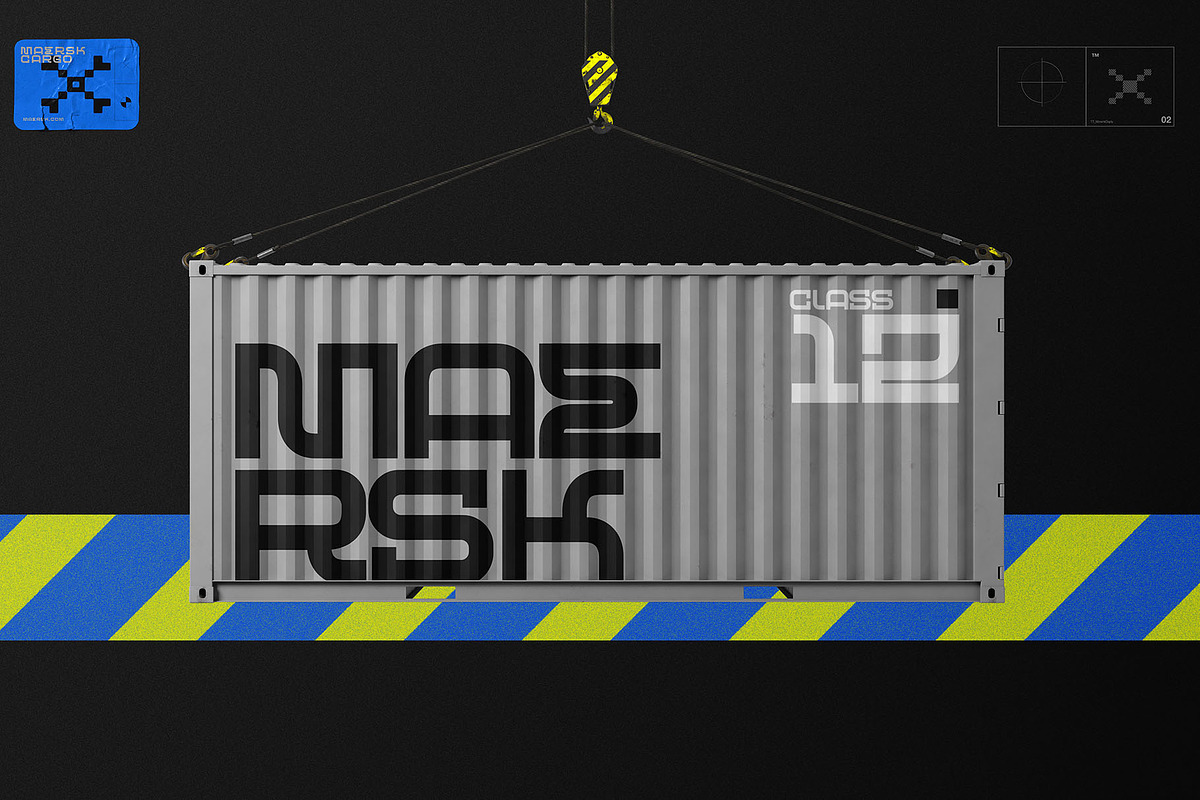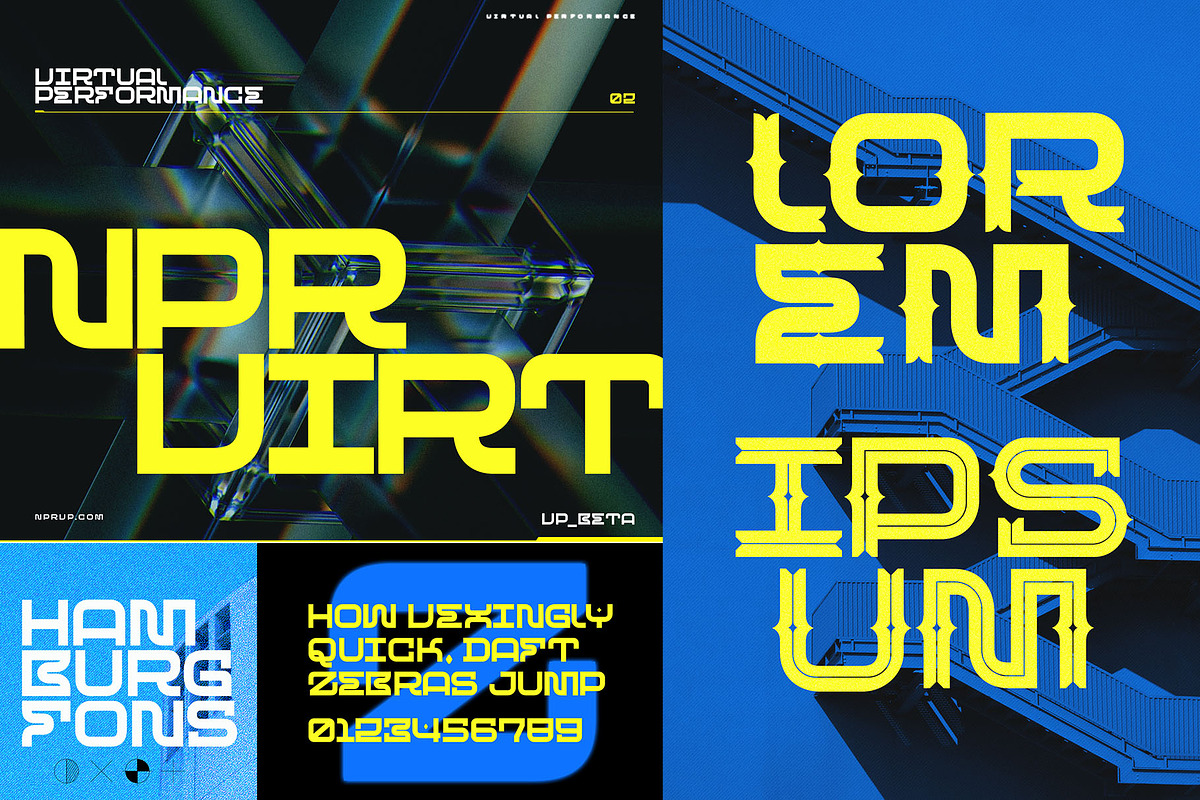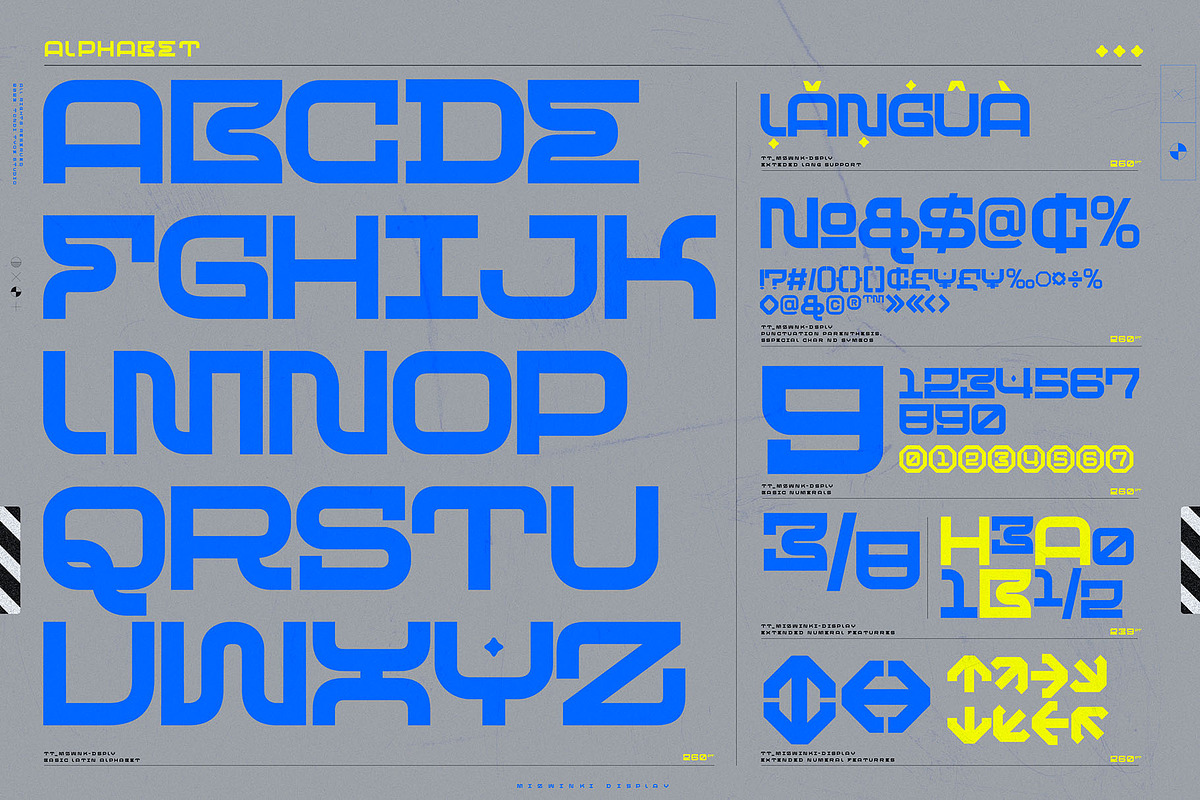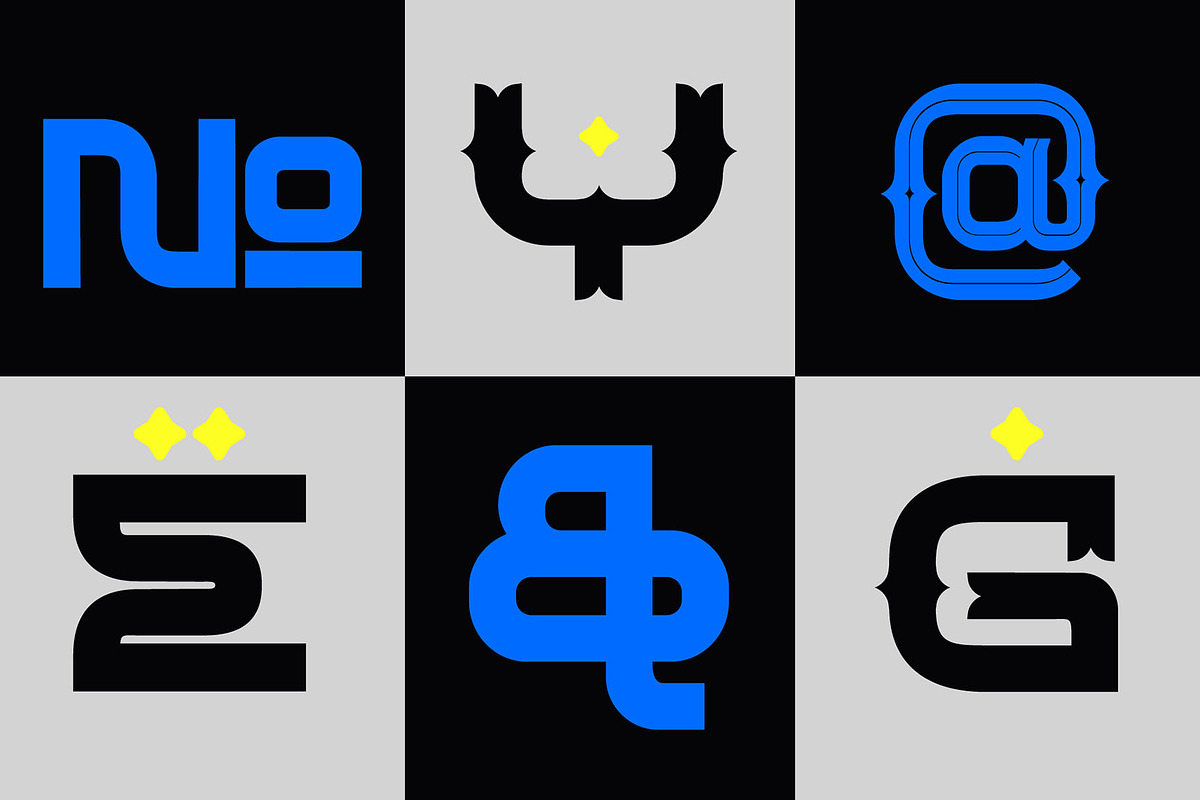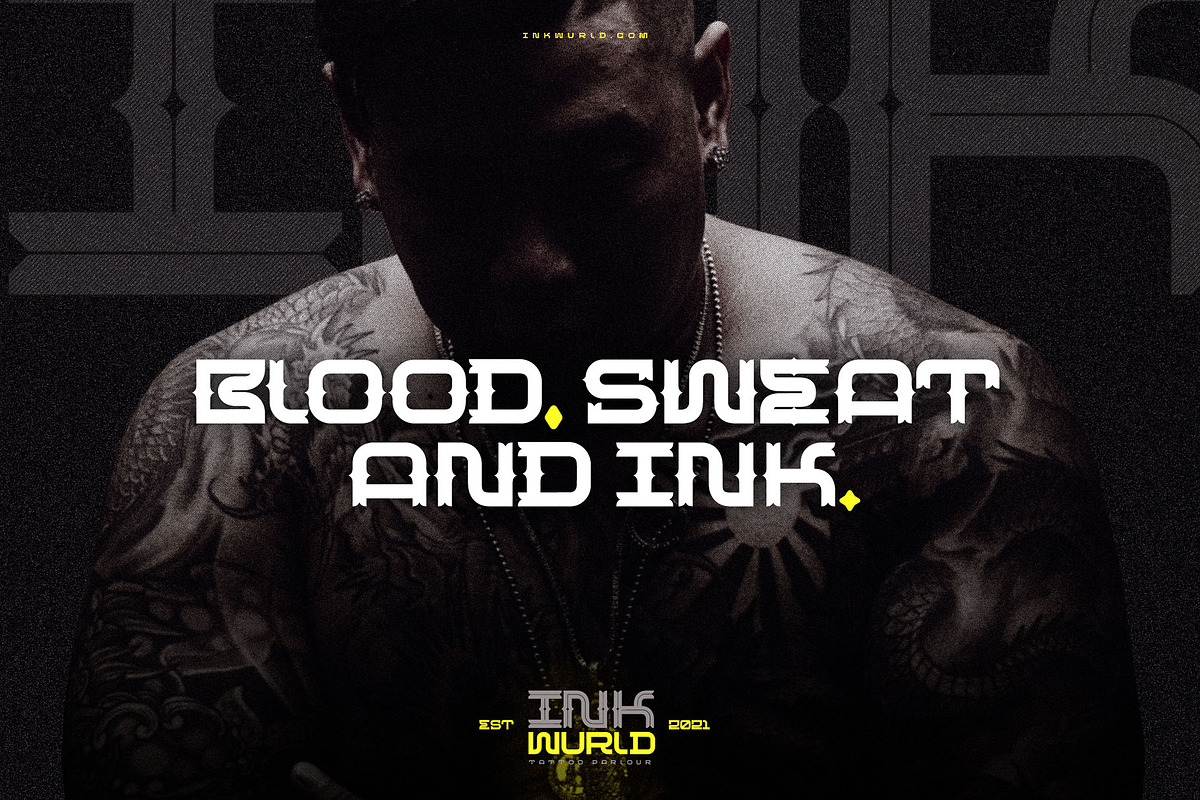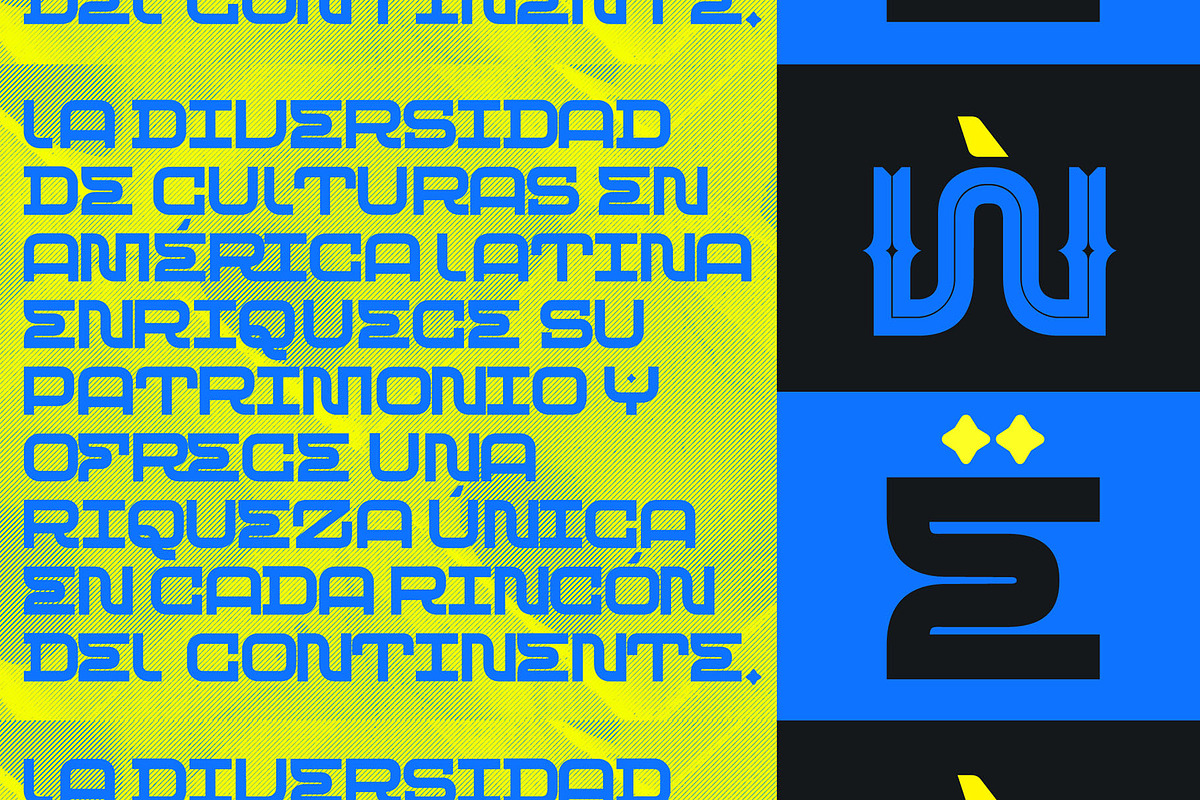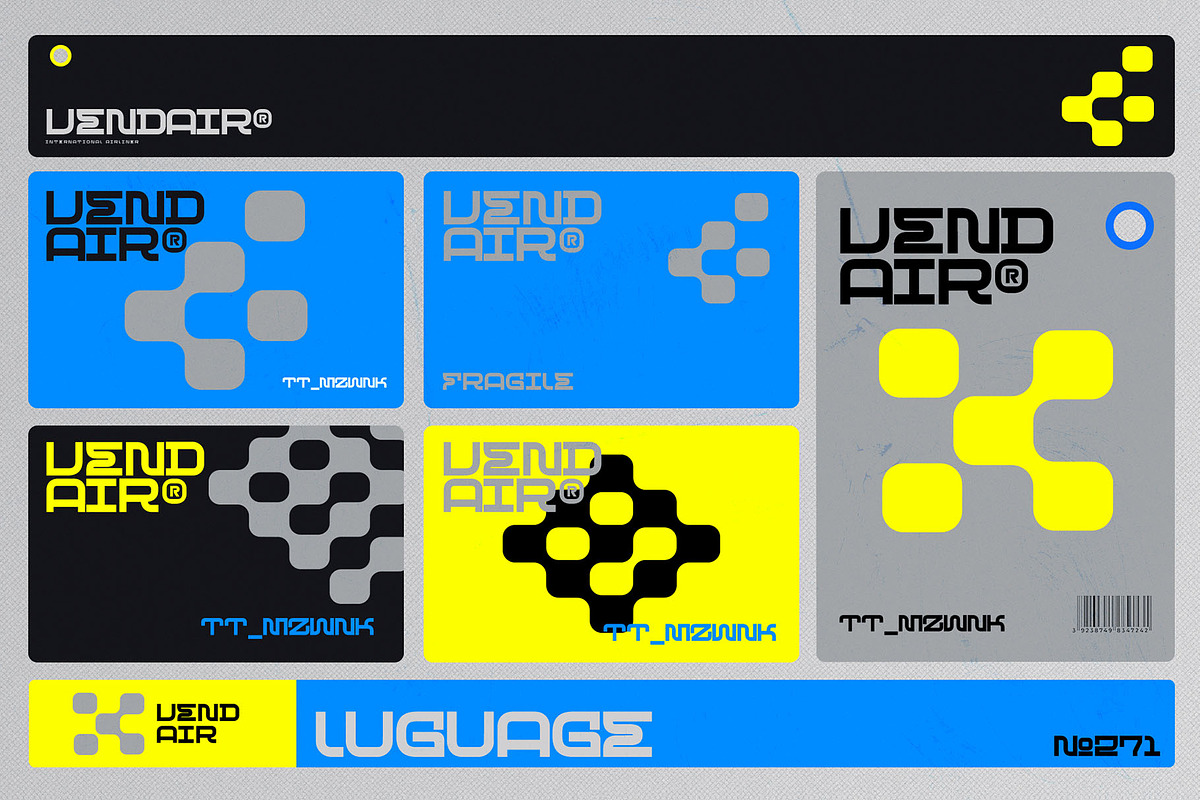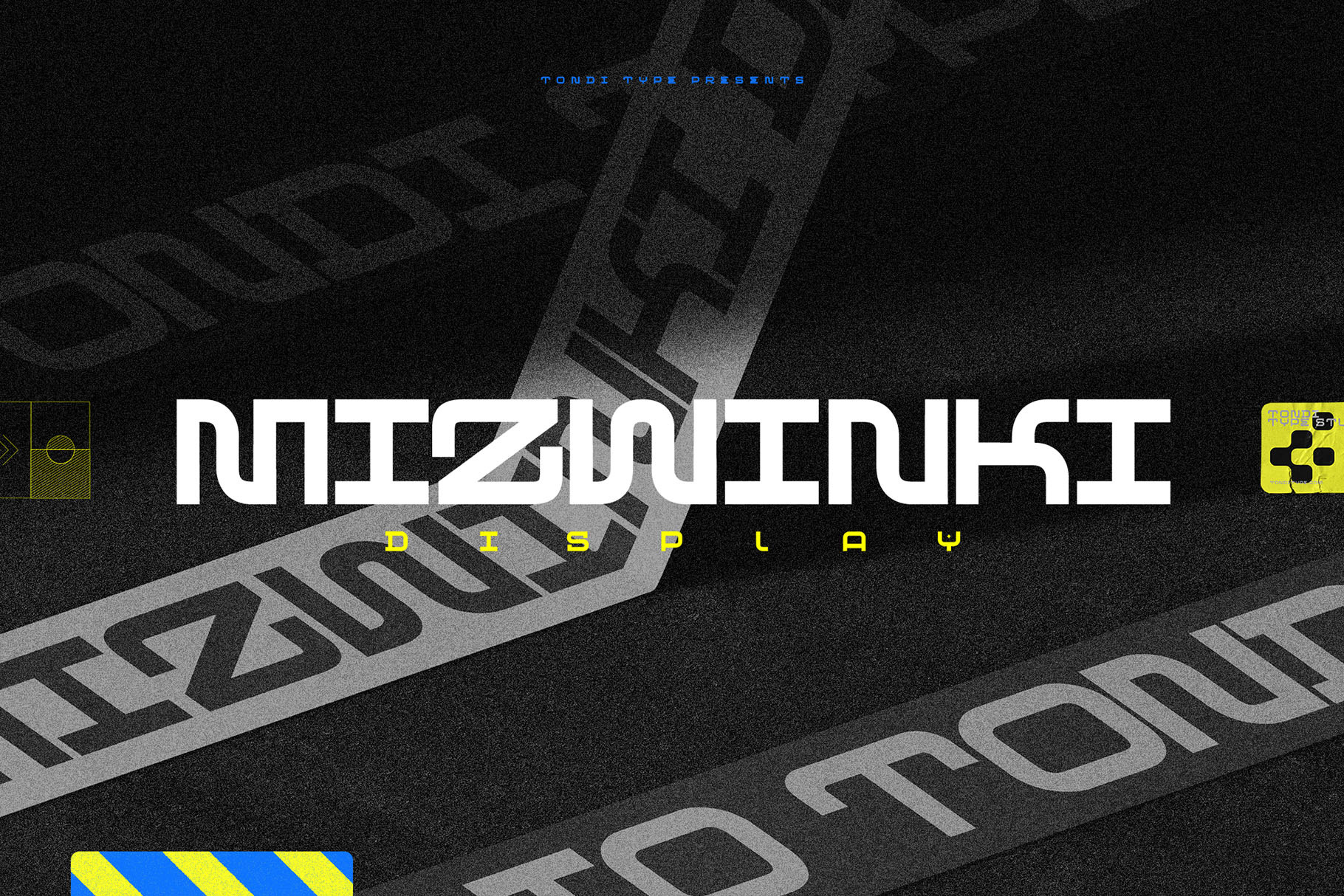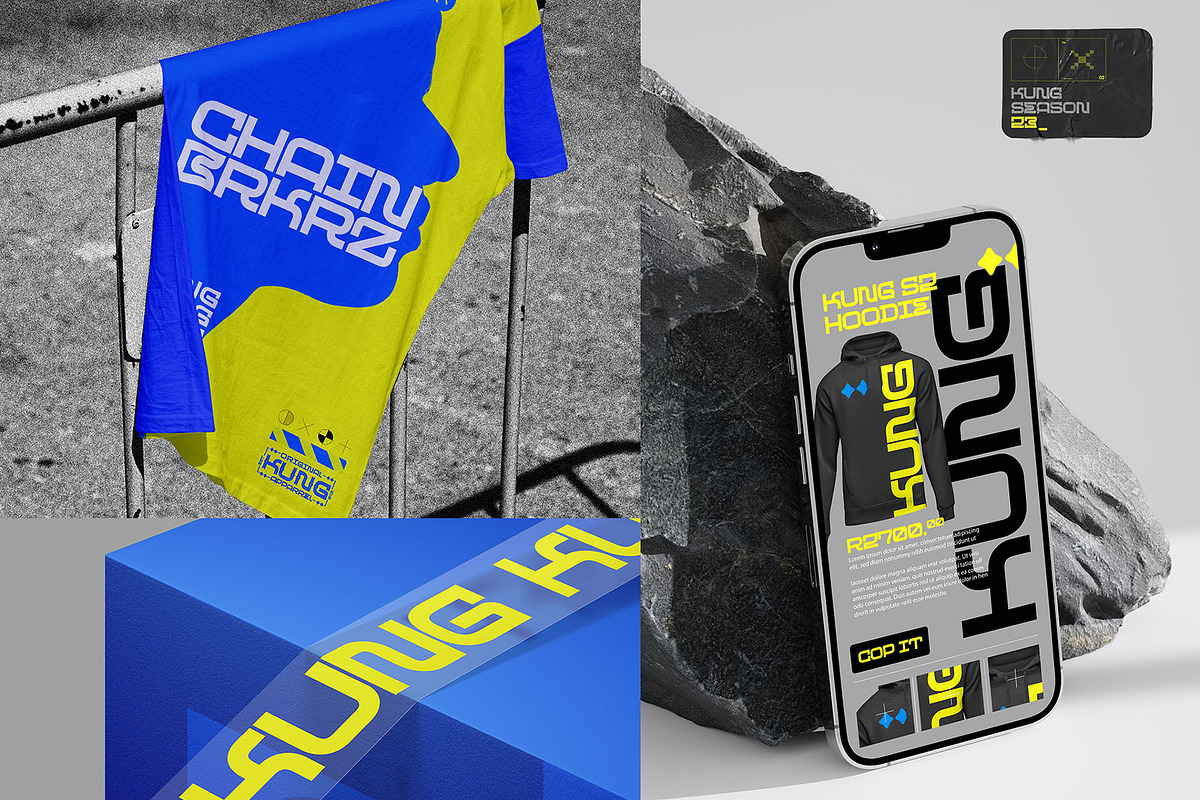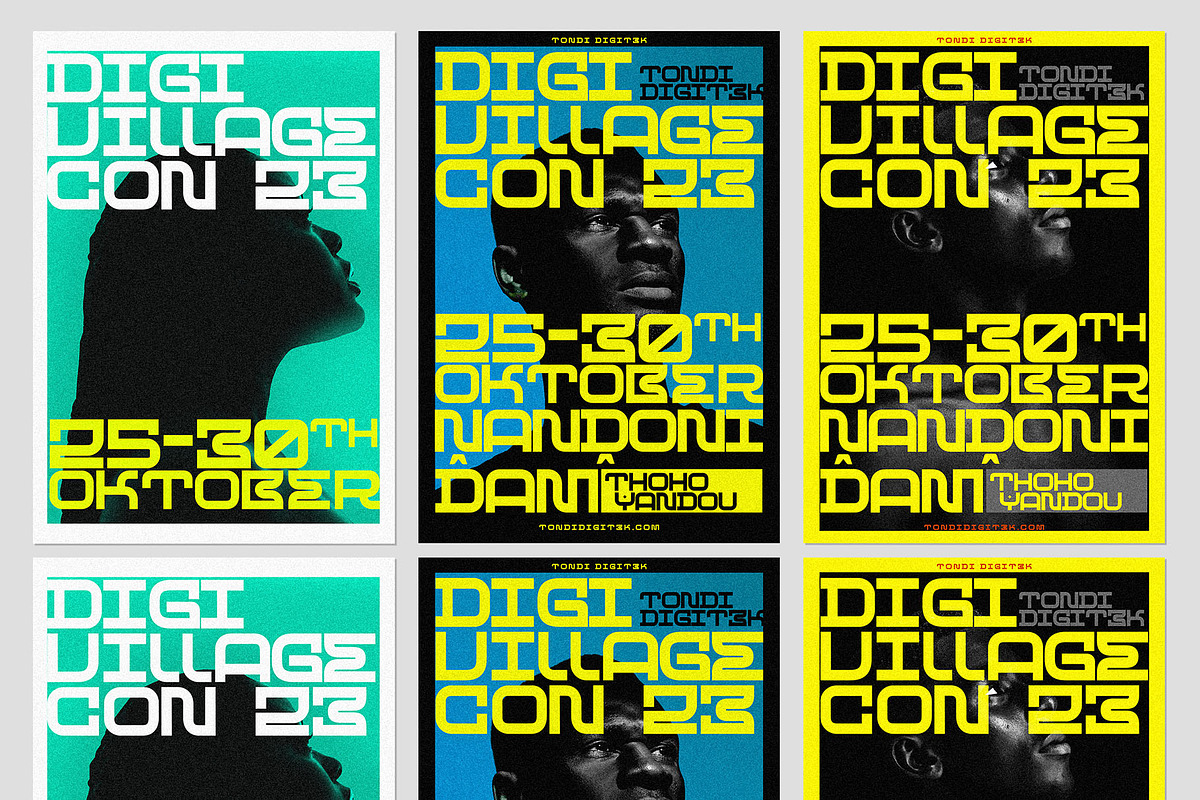
Mizwinki Display Font Family
Unveil the magic of Mizwinki Display, a sans serif font family that seamlessly blends modern elegance with artistic flair. The typeface has organic forms that give it a clean decorative and oriental appeal, showcasing multiple personalities within its three unique styles:
- Mizwinki Base
- Mizwinki Ink
- Mizwinki Inkline
A product of typographic evolution Witness the evolution from simplicity to sophistication. Mizwinki Display started as a futuristic sans serif and evolved into a captivating decorative display font, offering a diverse range of creative possibilities.
Versatile Charm Mizwinki Display isn't just a font; it's a versatile tool for every designer. Its multiple personalities make it ideal for a myriad of projects, from sleek and modern designs to ornate and decorative creations.